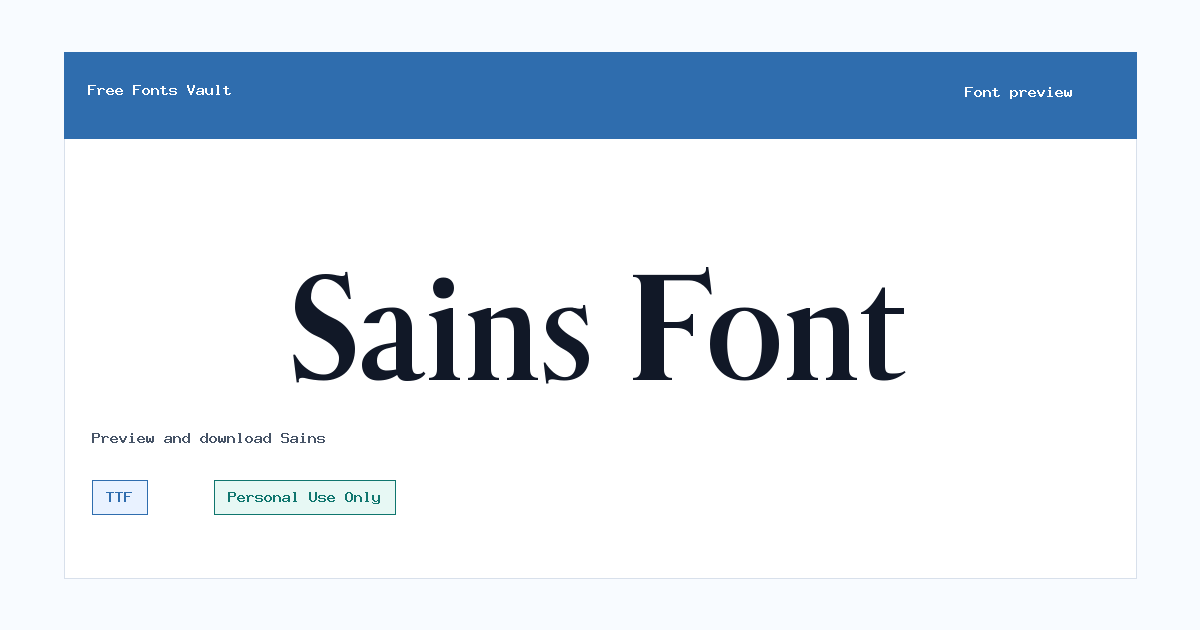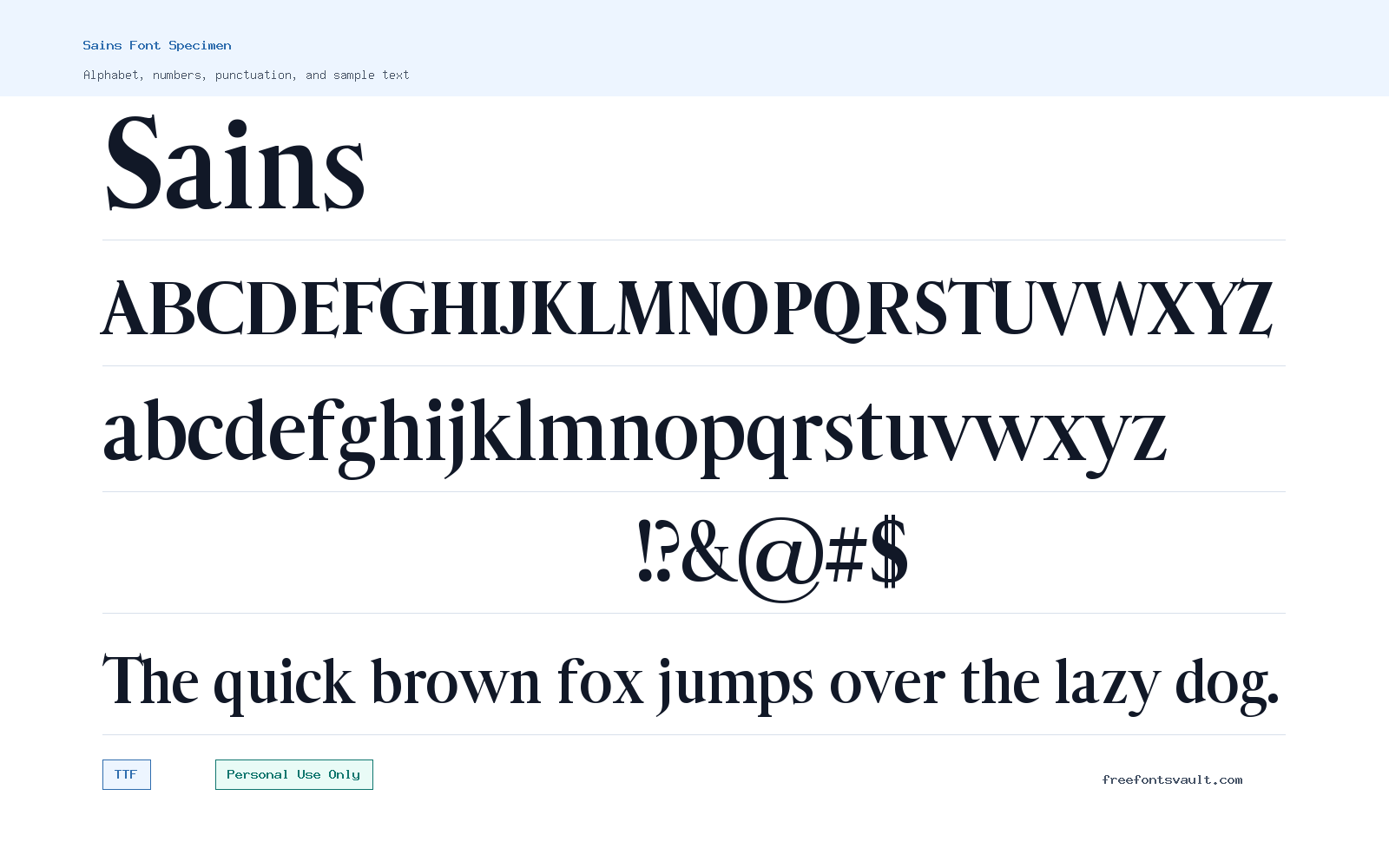
Sains
Sains Font
Sains is a serif font with a strong display feel, offered in a Regular TTF style. Its high contrast, sharp terminals, and bold letter shapes make it better for short, noticeable text than for long reading blocks.
Sains has the look of a classic serif display face: thick vertical strokes, thinner connecting strokes, and compact details that give words a formal, editorial tone. In the Regular style, uppercase letters feel wide and confident, while lowercase letters keep a dense rhythm on the line. The result works well when the text needs presence, especially in large sizes where the contrast and small serif details can be seen clearly.
Use Sains for titles, magazine-style headings, quote graphics, invitations, mood boards, boutique branding drafts, and short website hero text. It is less practical for long paragraphs, small captions, or crowded mobile layouts because the contrast and tight shapes can lose clarity at small sizes. Before downloading, type your own words in the preview and check common problem areas: lowercase spacing, punctuation, numbers, and mixed-case headlines. For pairing, keep the companion font simple. A clean sans serif for body copy or labels will let Sains carry the visual weight without making the layout feel too busy.
• Serif display character with strong contrast and sharp details.
• Large headings, posters, quote images, and editorial-style title text.
• Personal design drafts, invitations, social graphics, and logo concept testing.
Preview Sains at the size you plan to use it. It looks strongest in short text, while longer copy should usually be set in a simpler companion font for easier reading.
What style of font is Sains?
Sains is a serif font with a display-friendly look. It has strong stroke contrast and works best when the letters are shown at a larger size.
Can I use Sains for body text?
It is not the best choice for long paragraphs. Use it for headings or short phrases, then pair it with a clean sans serif or readable text face for body copy.